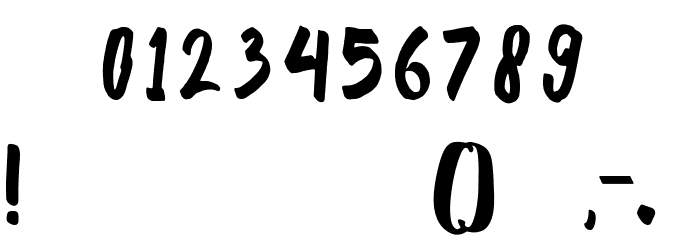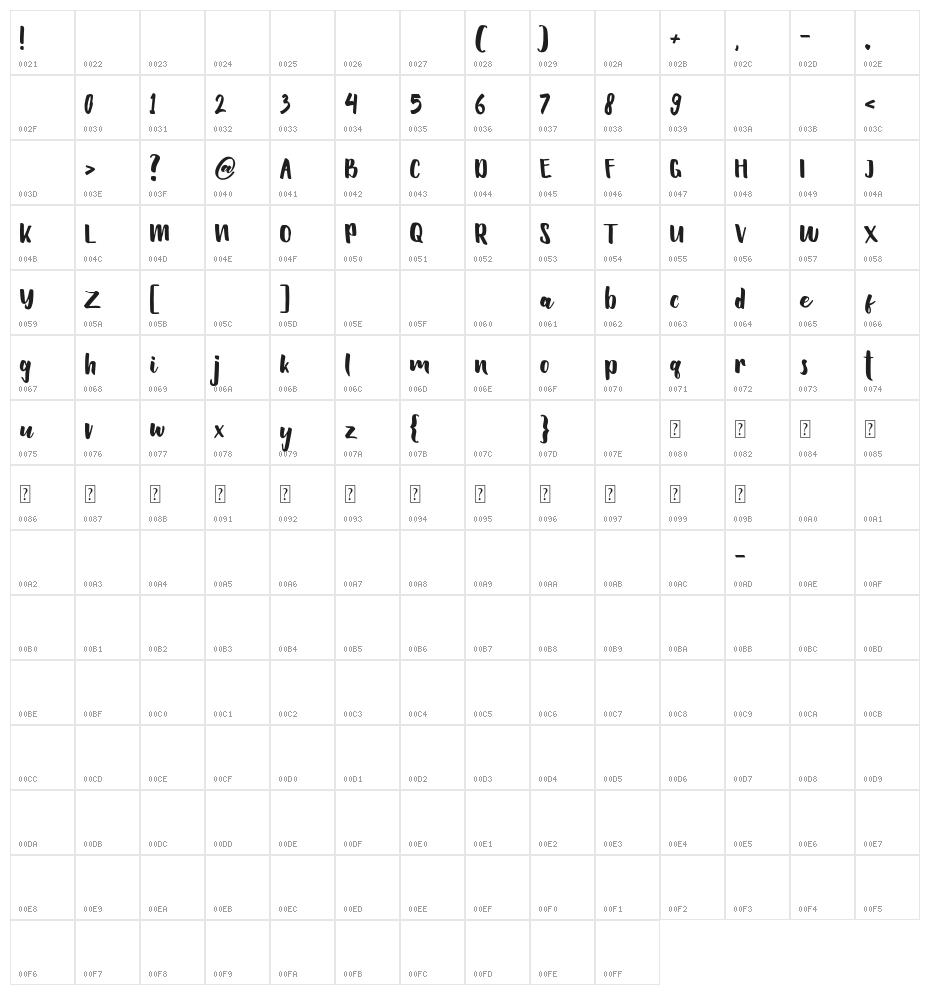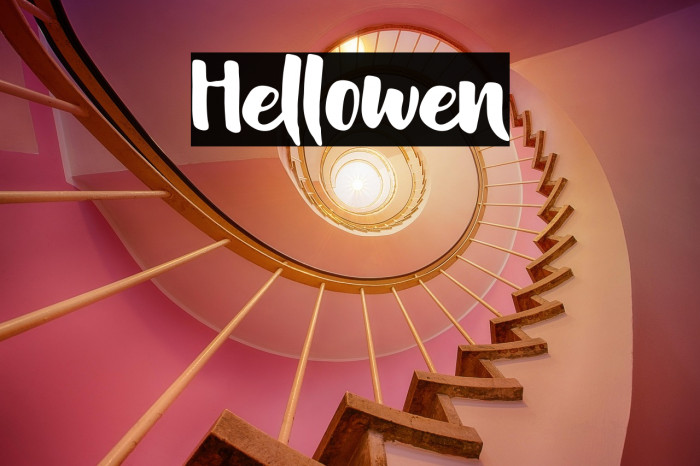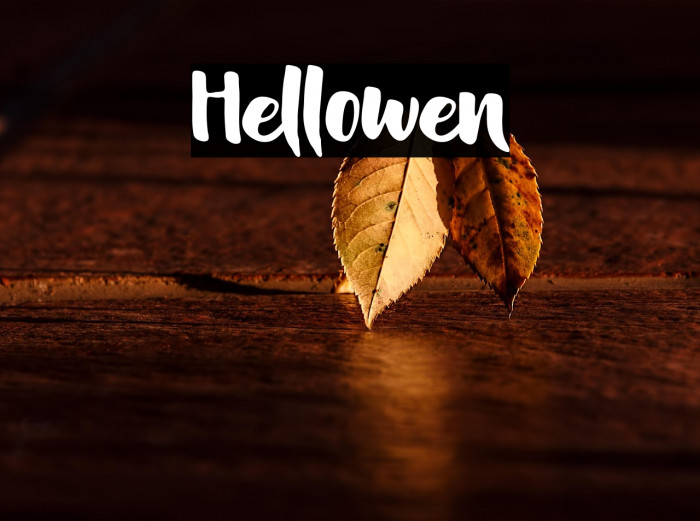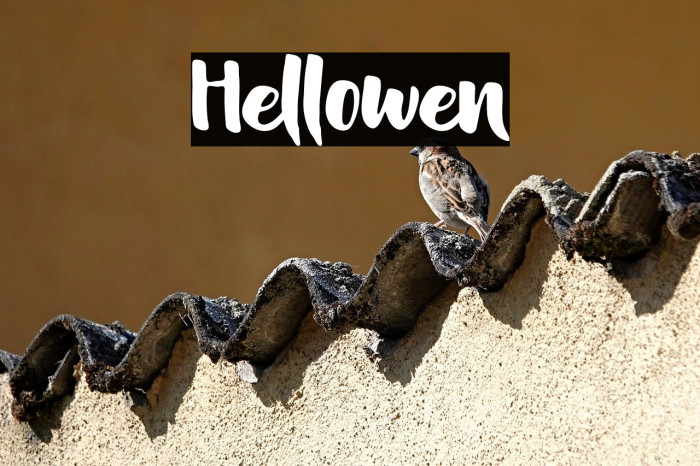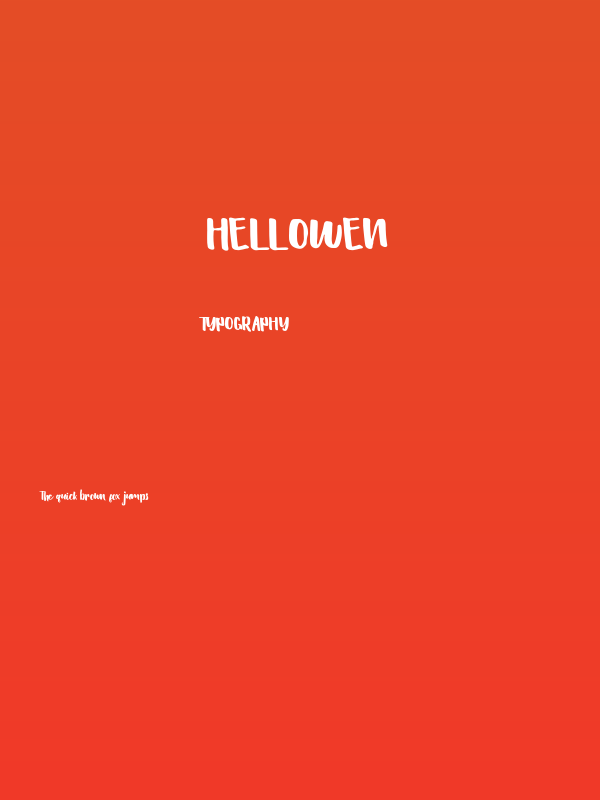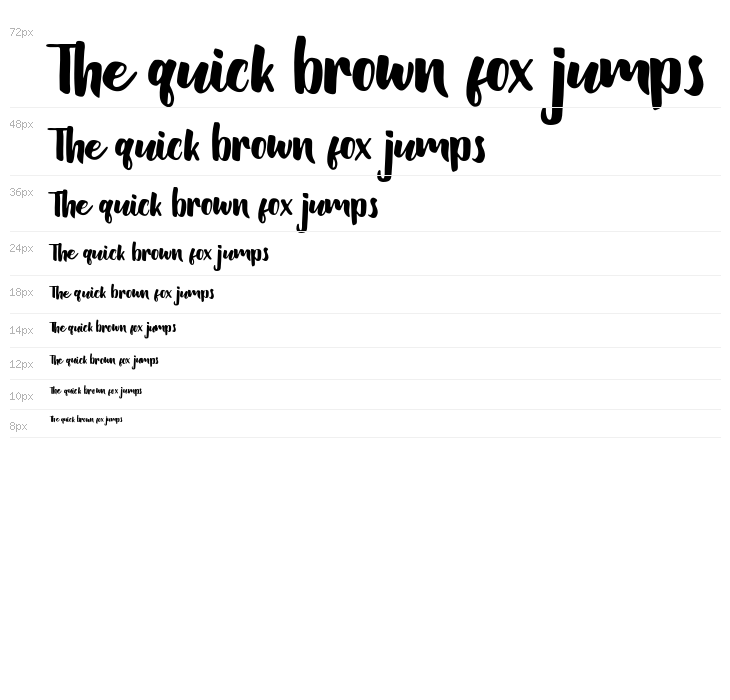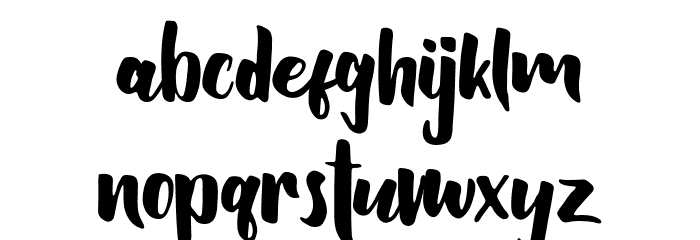
Hellowen Font
Hellowen Description
This font features a playful and bold handwritten style, characterized by its thick strokes and slightly irregular shapes that give it a lively and dynamic appearance. The uppercase letters are robust and slightly condensed, while the lowercase letters maintain a consistent flow with a touch of whimsy. Numbers and special characters follow the same bold and expressive design, making them stand out. The overall look is casual yet impactful, suitable for projects that require a personal and energetic touch.
| Overall Style | Playful, Casual |
| Proposed Projects | Ideal for greeting cards, posters, children's books, and playful branding projects. |